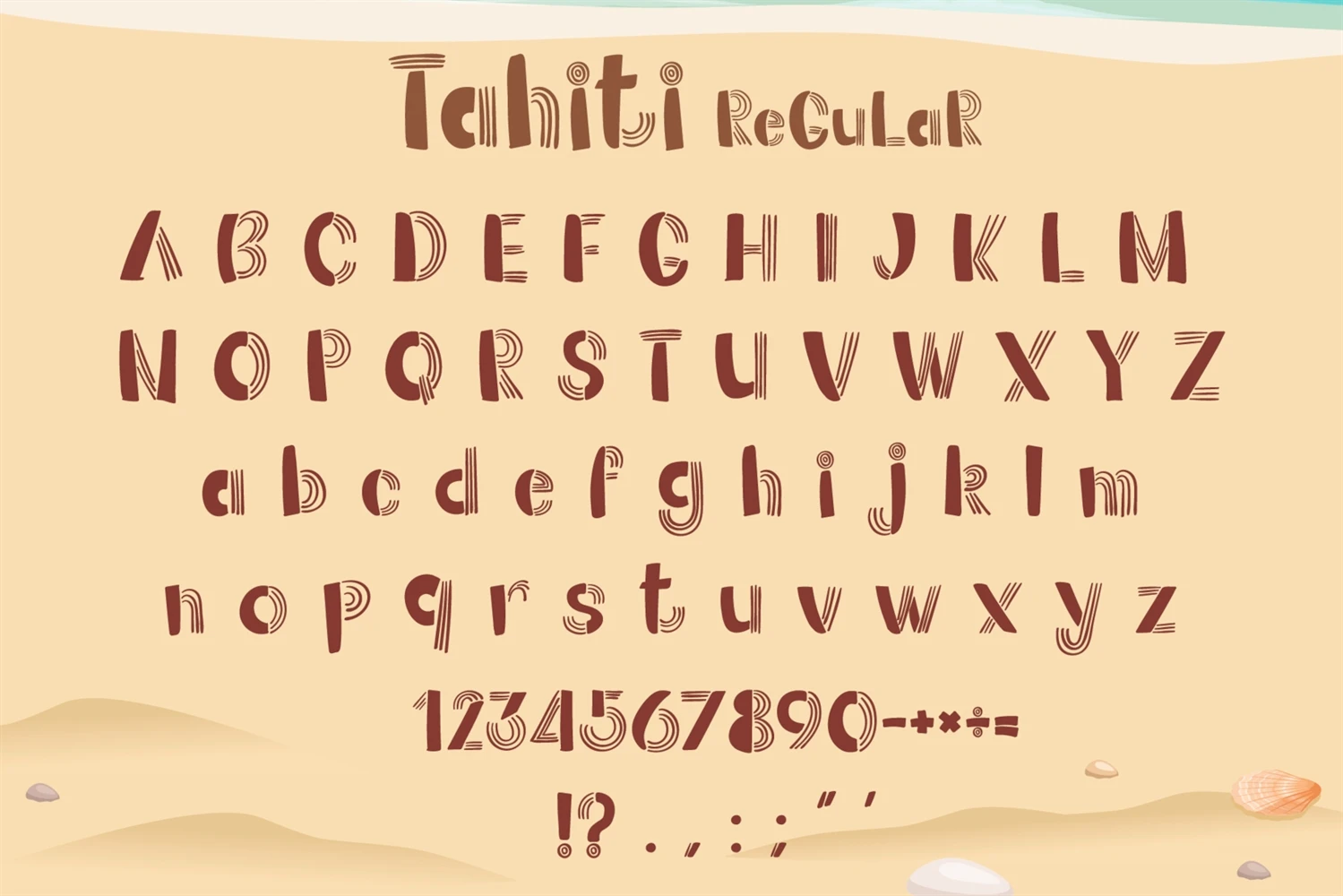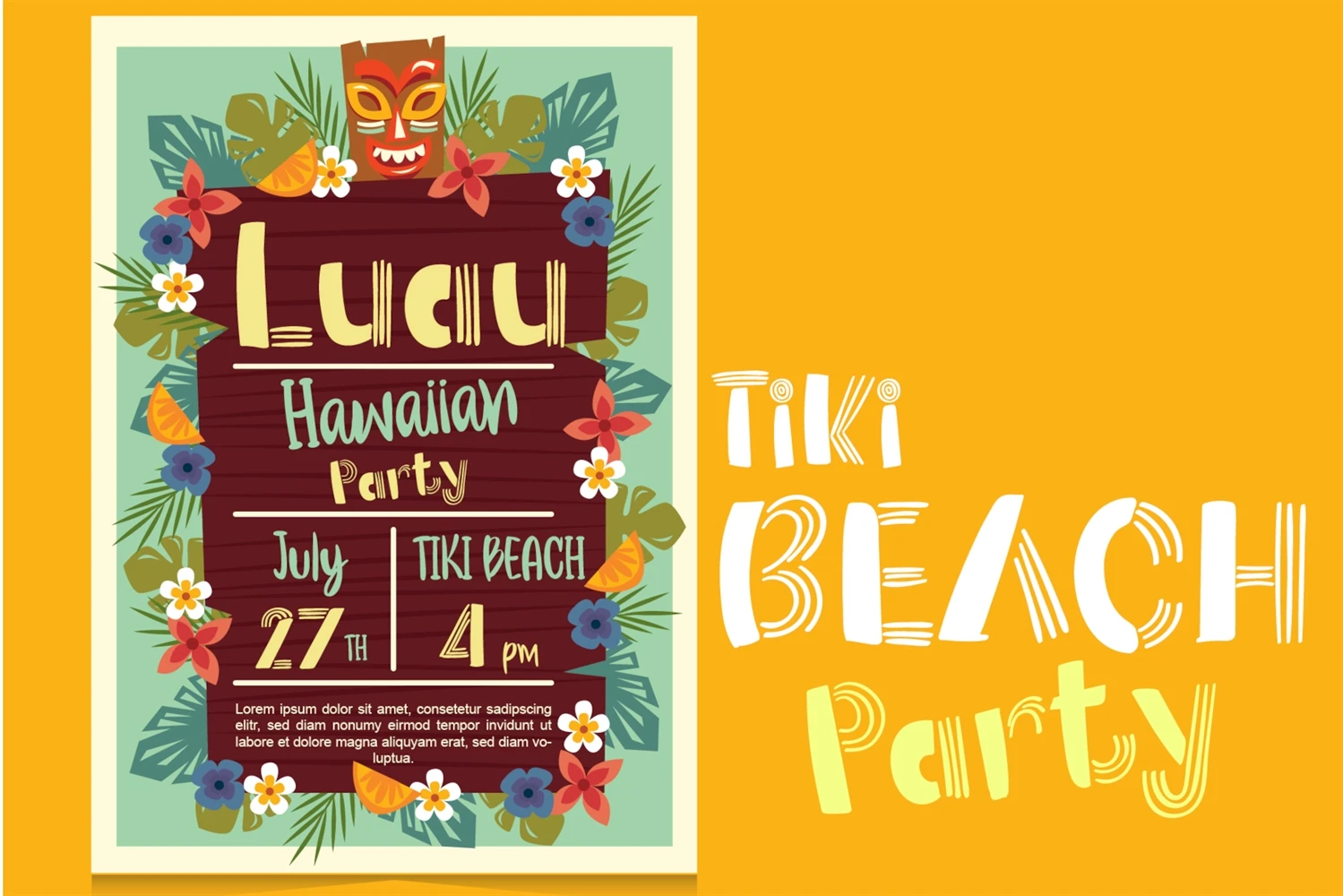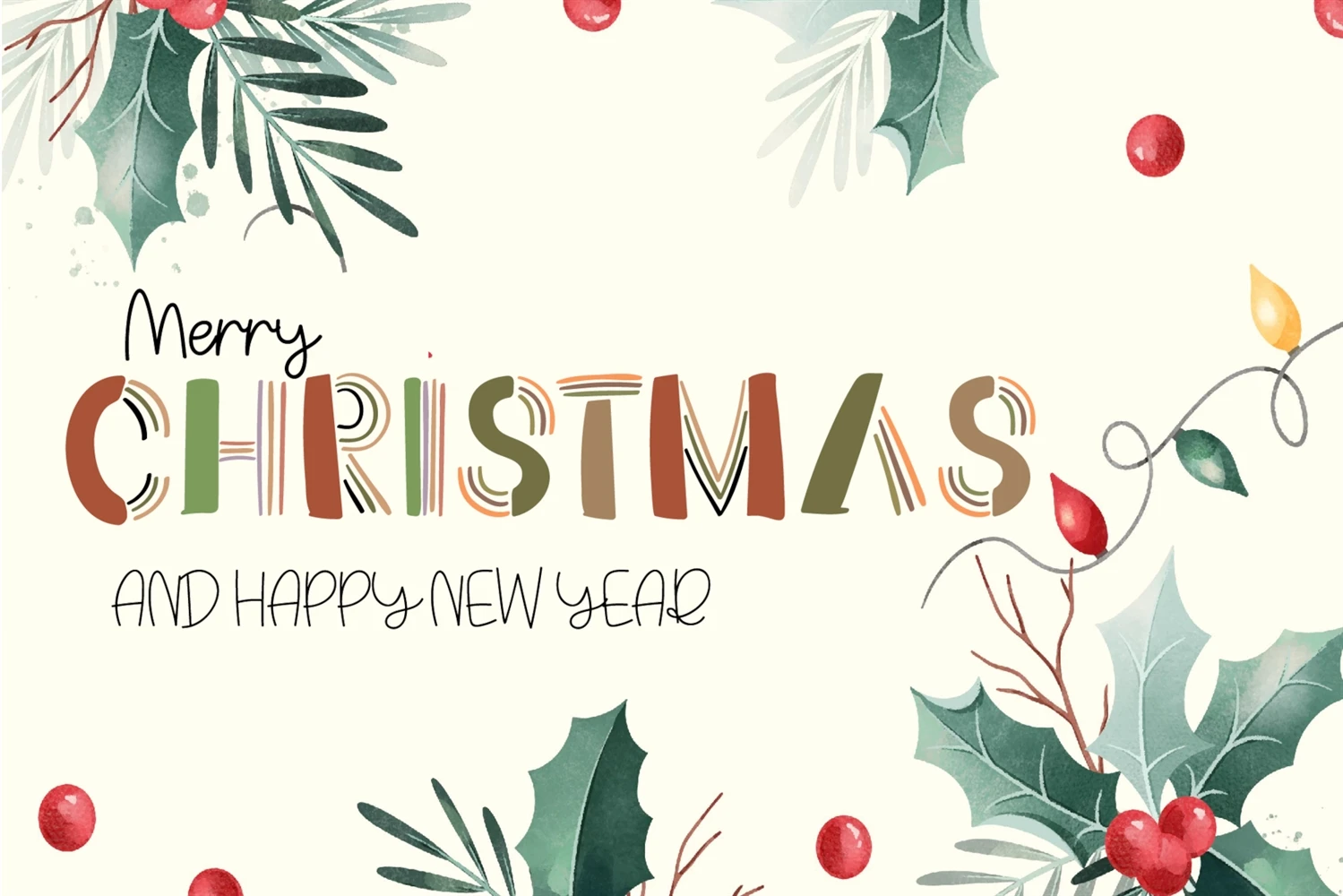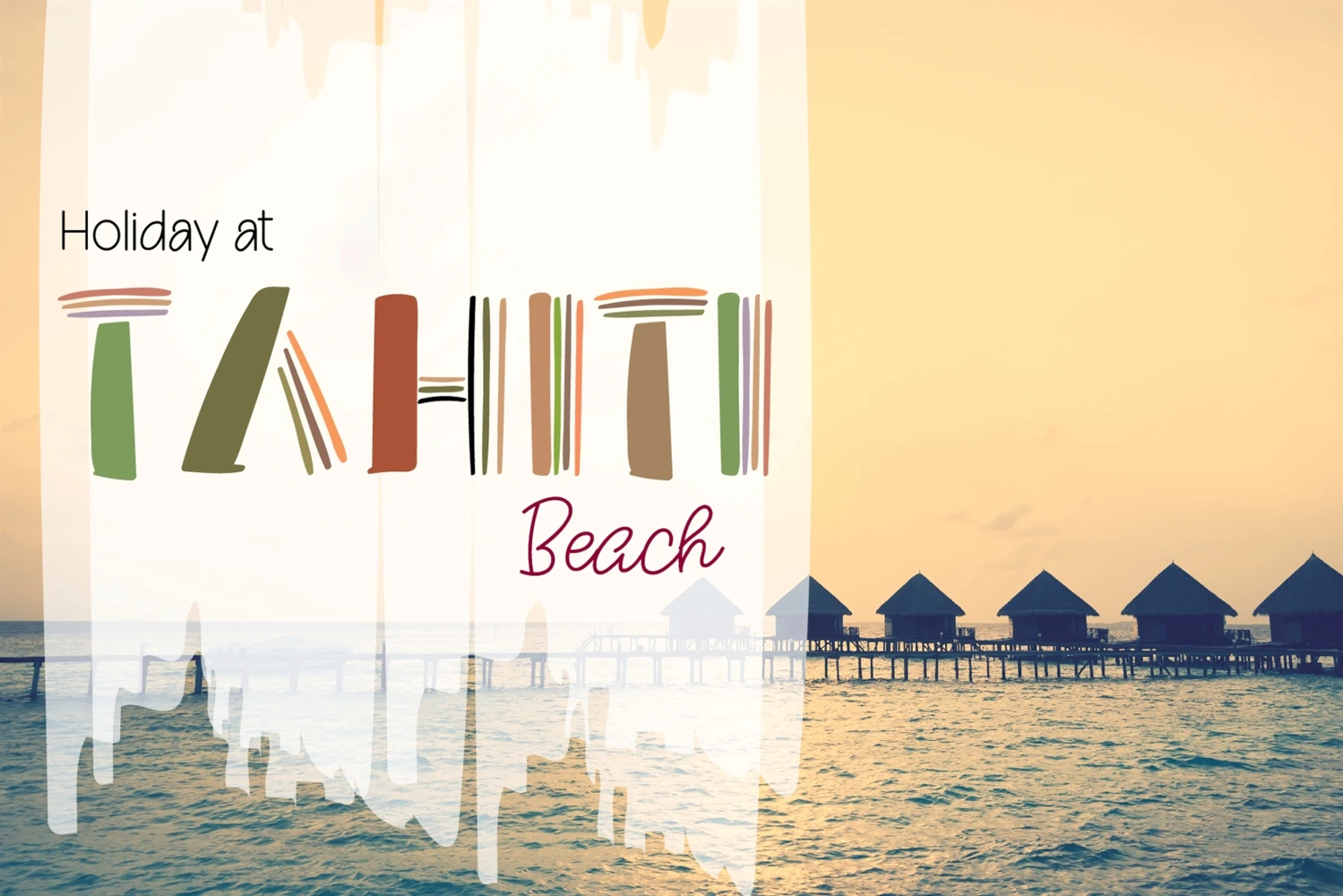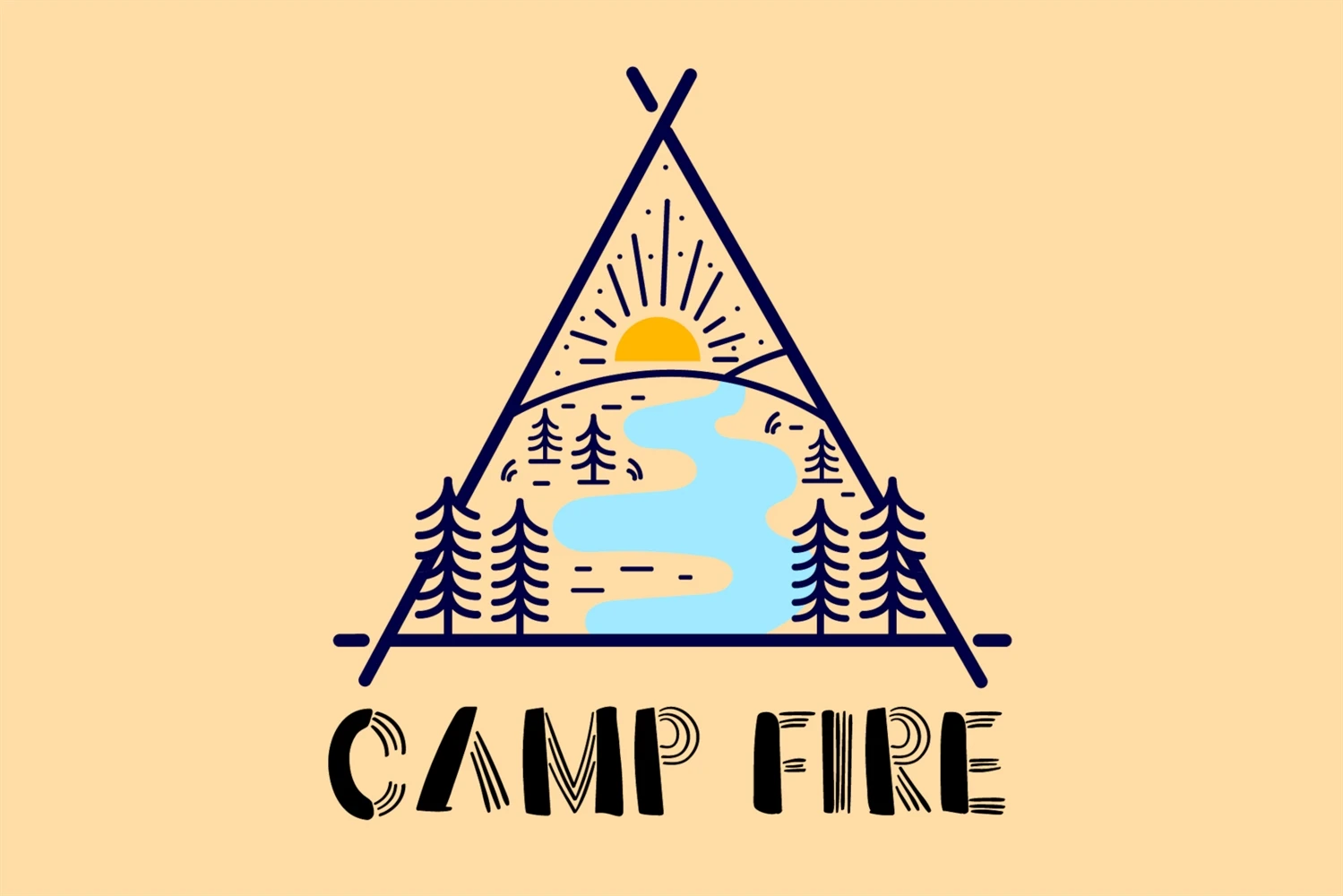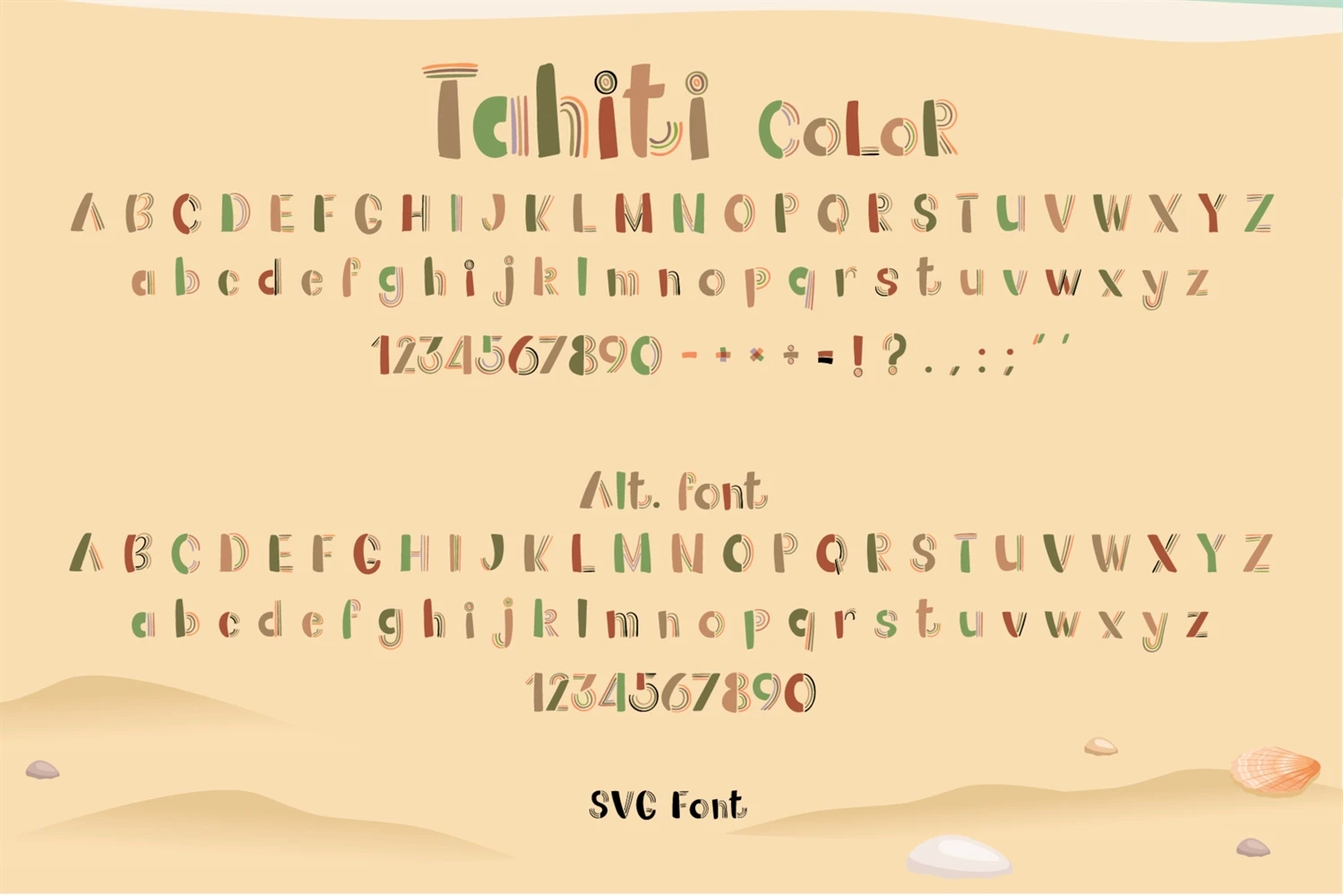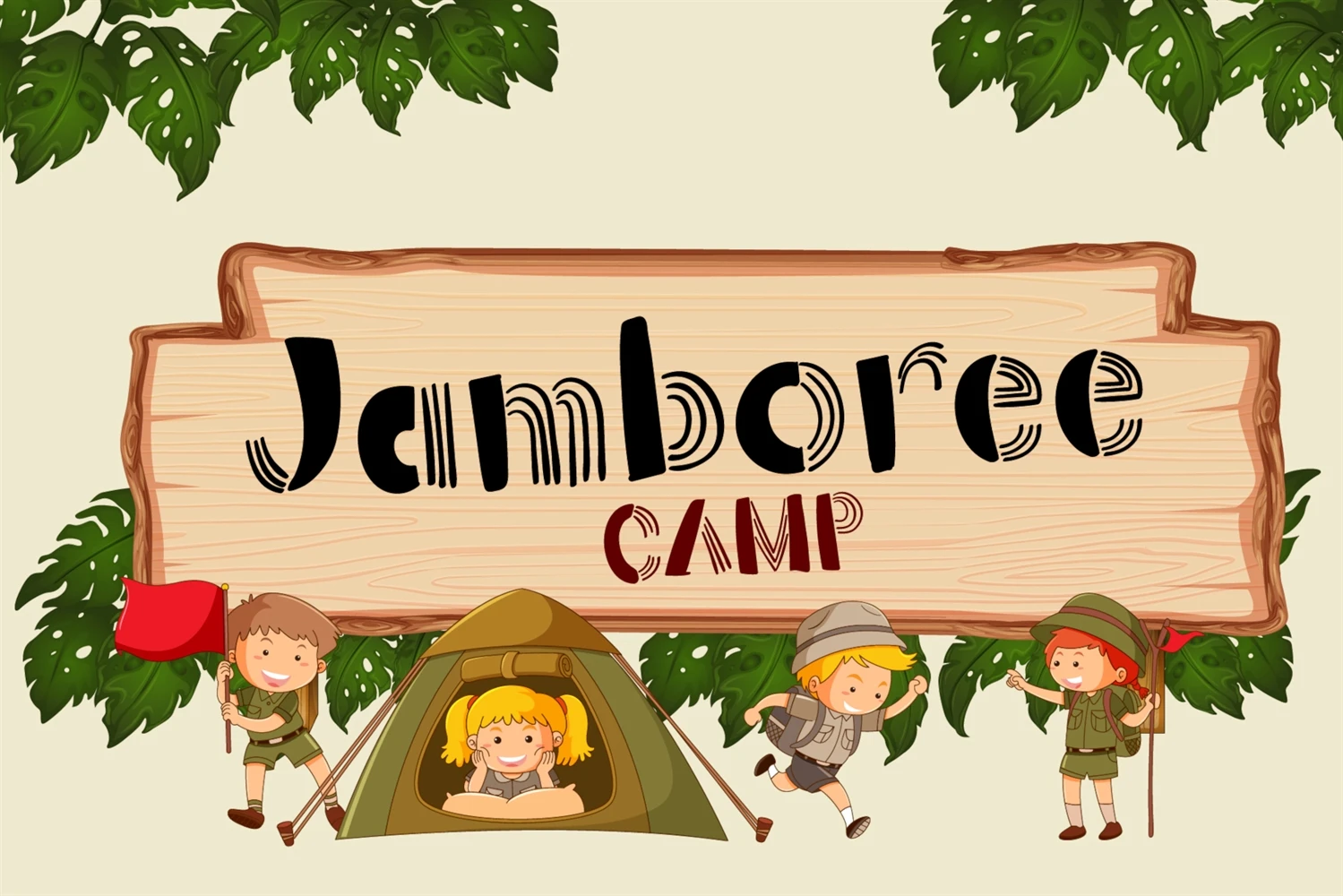
Tahiti is an incredibly unique and fun svg color font and display font . It embodies uniqueness and joy. This dazzling font will turn any creative idea into a standout!